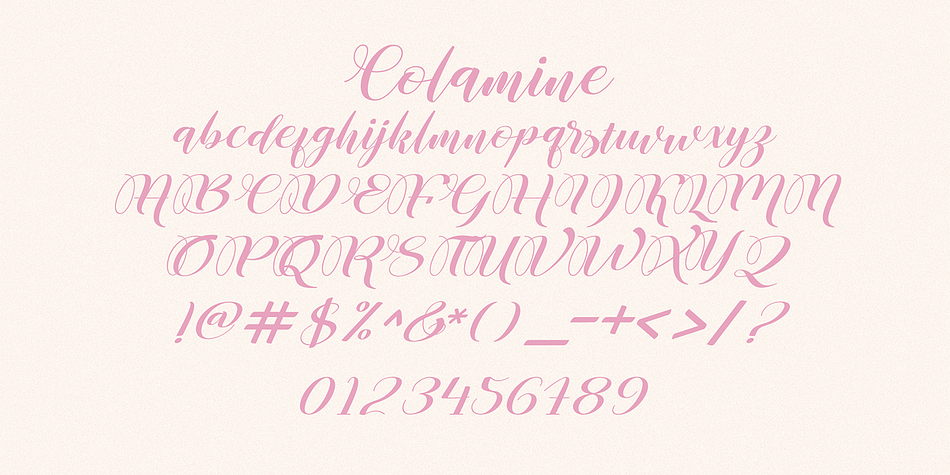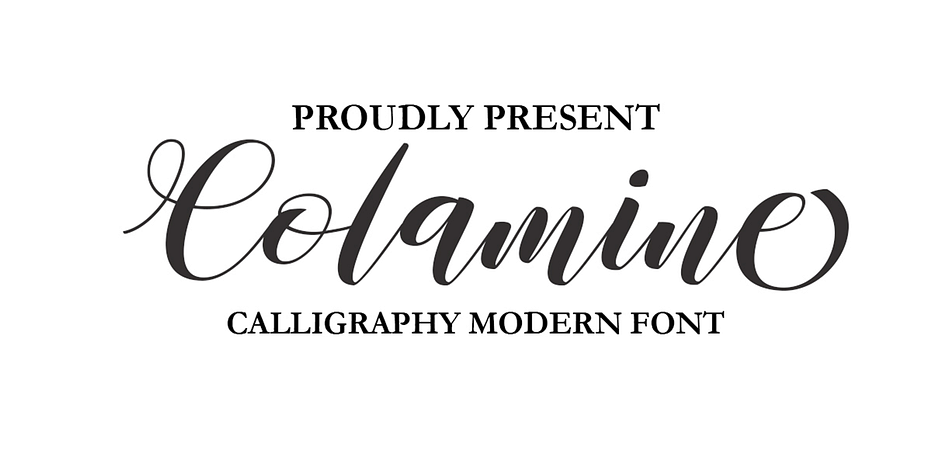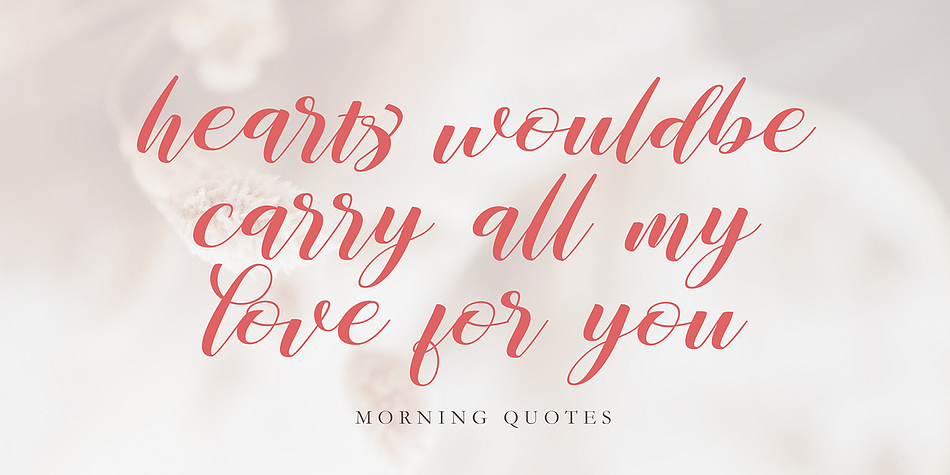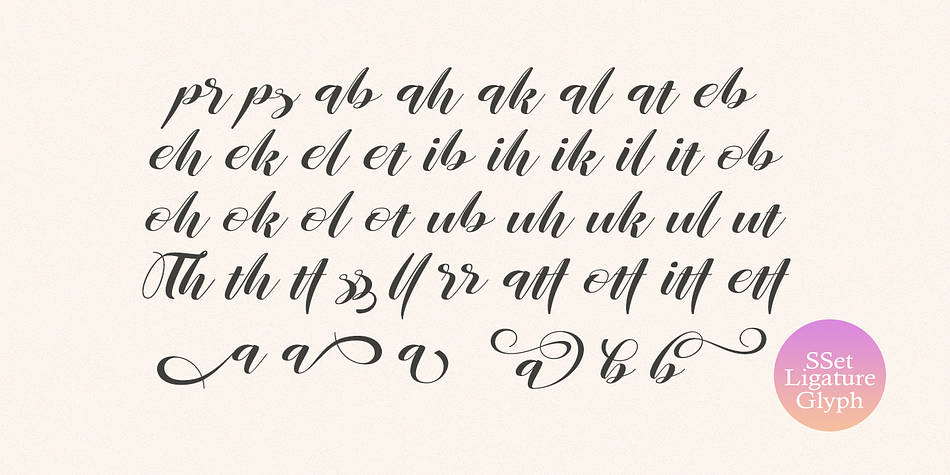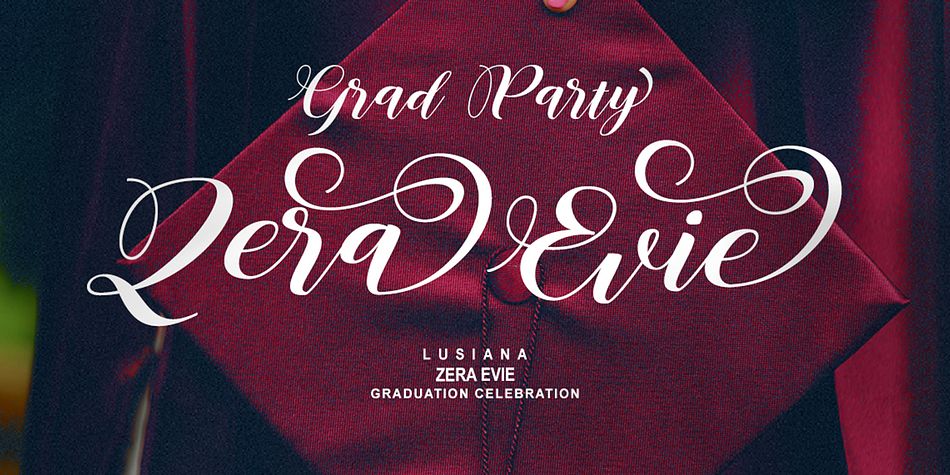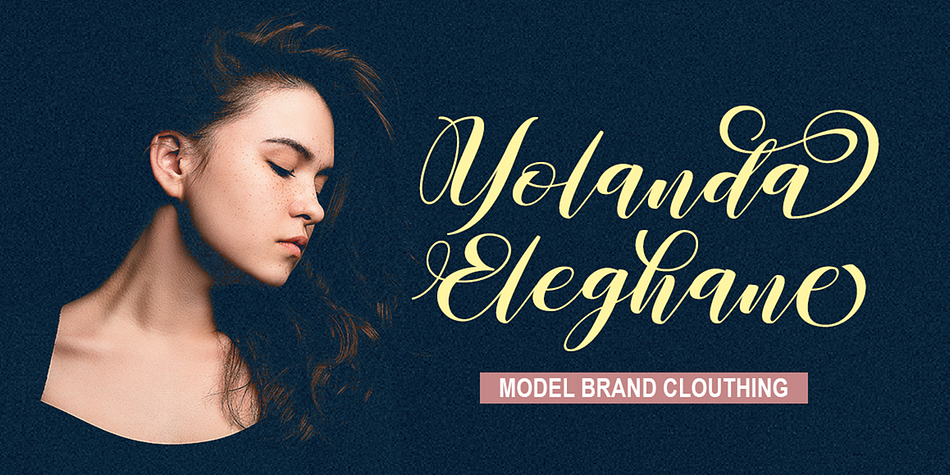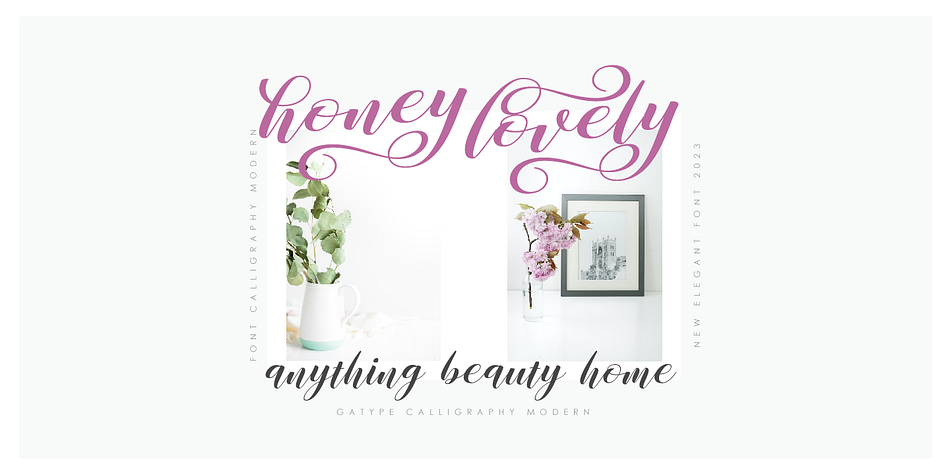
Colamine
Colamine is a modern calligraphy font family published by Gatype.
Introducing Colamine, a modern, free-flowing, hand-drawn font. Colamine has THREE COMPLETE CHARACTER SETS including uppercase and lowercase letters with full initial and final swash sets, binders, and a Stylistic Set.
Characters were hand-drawn and then carefully digitized to create this modern script. Use character sets as they are, or mix them up and use additional options to create authentic-looking handwritten masterpieces. There’s one amazing set of capitals that’s perfect for monograms and another set of capitals that looks more like block letters. Check out the preview to see what you can do. This script is perfect for wedding suites, social media, blogs, titles, magazine layouts, monograms, businesses and anywhere else you need a script that looks modern and free flowing.